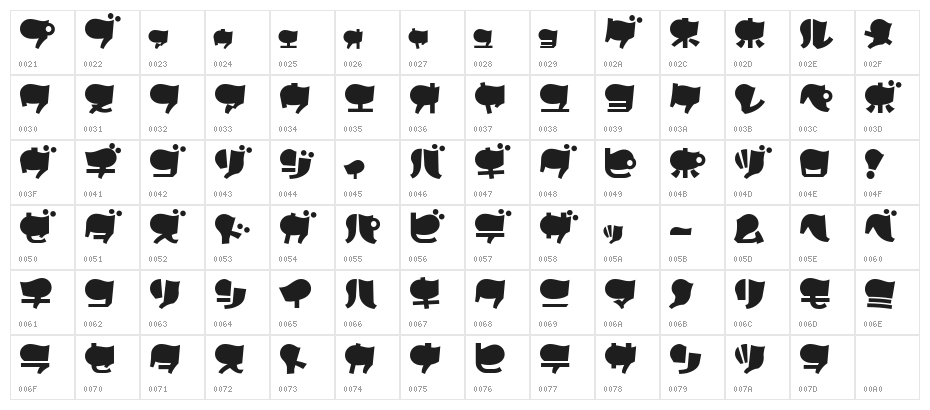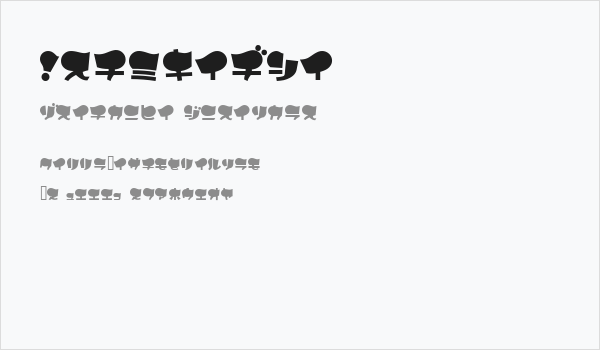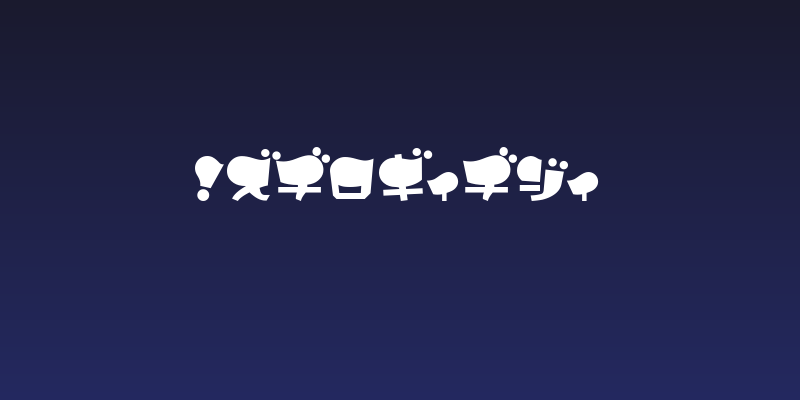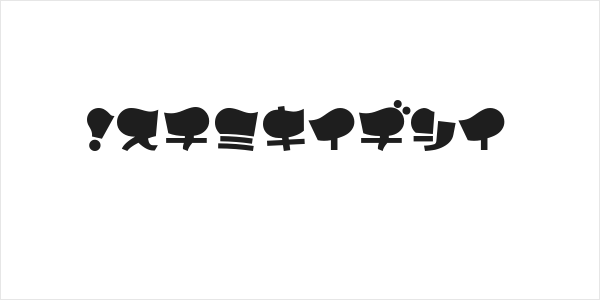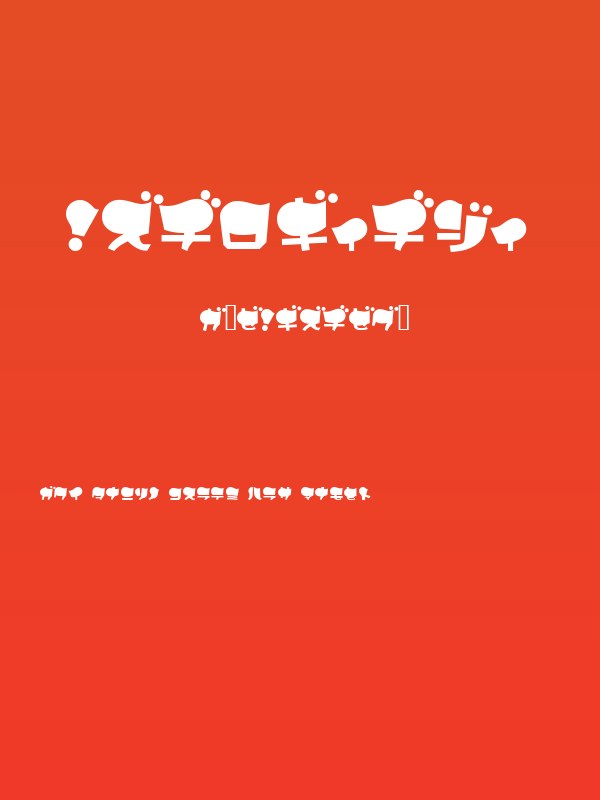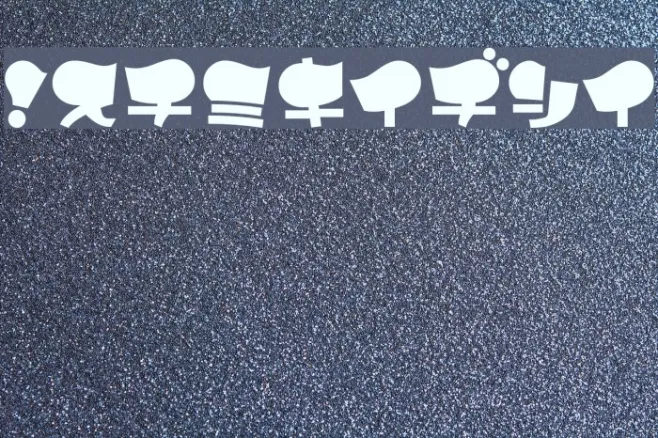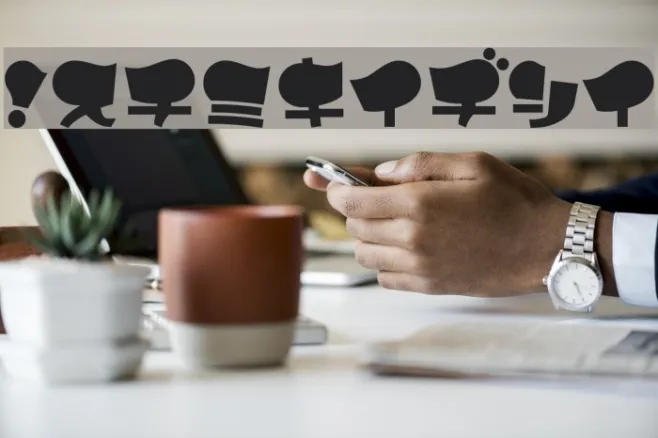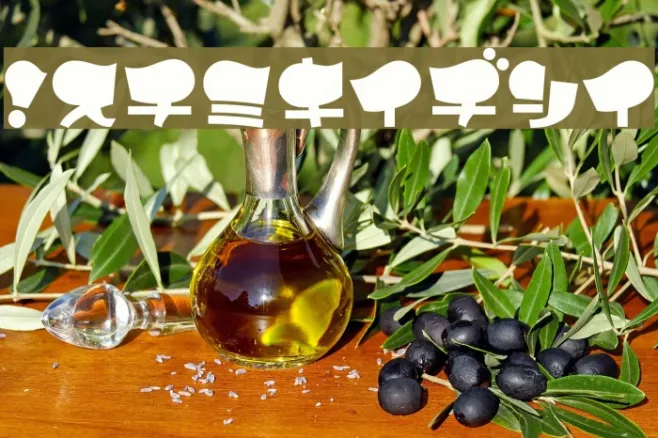
OrangeAde Font
OrangeAde Description
This font features a highly stylized and abstract design, with characters that resemble playful, cartoonish shapes. The letters are bold and have a unique, whimsical appearance, making them stand out with their thick, rounded forms. The overall look is very decorative, with a strong emphasis on visual impact rather than readability. Each character is distinct, with exaggerated curves and angles, giving the font a lively and dynamic feel. The font is ideal for creative projects that require a fun and unconventional aesthetic.
| Use Case | Logos, Posters, Creative Branding |
| Proposed Projects | Ideal for children's book covers, playful posters, creative branding, and unique logo designs. |